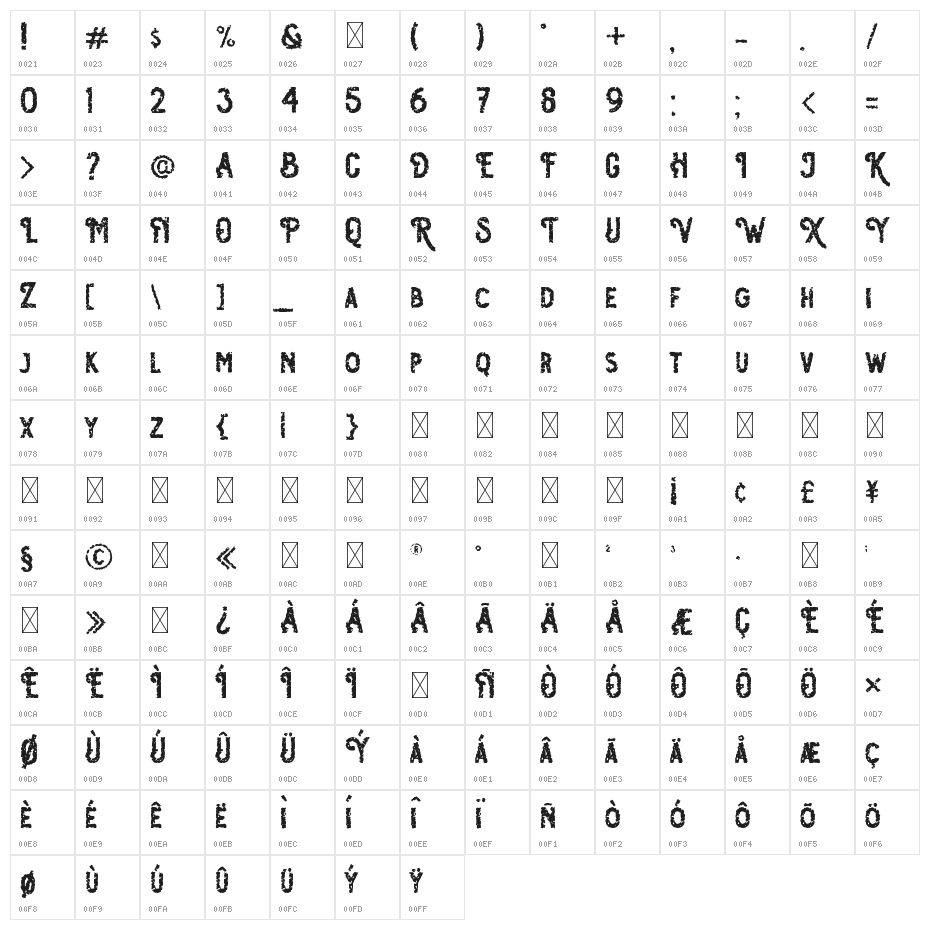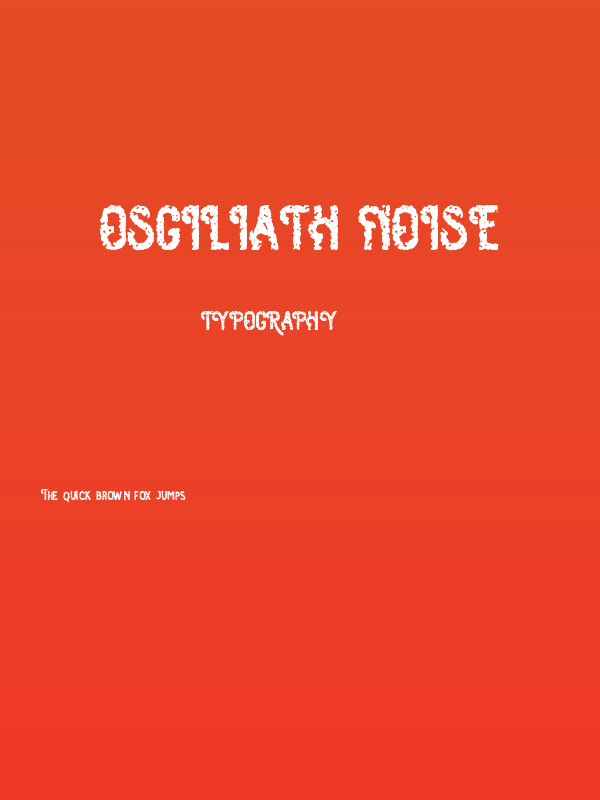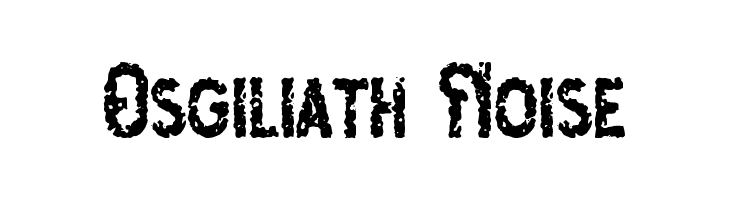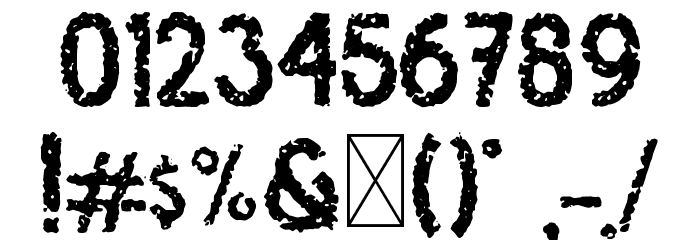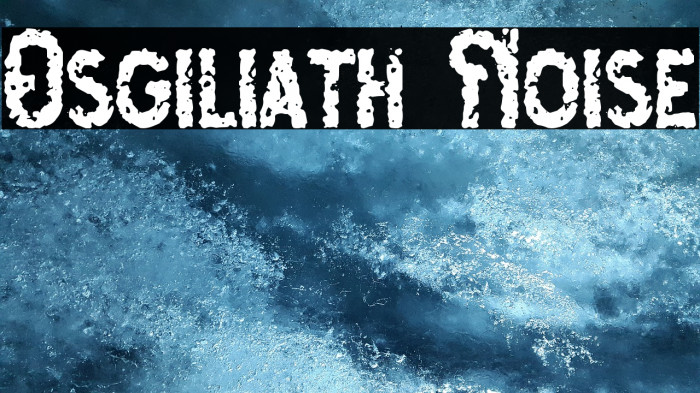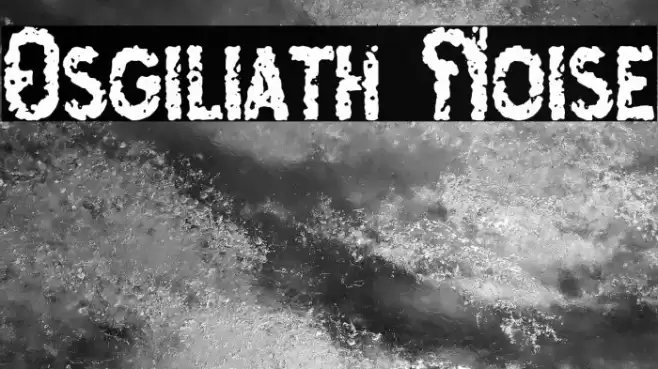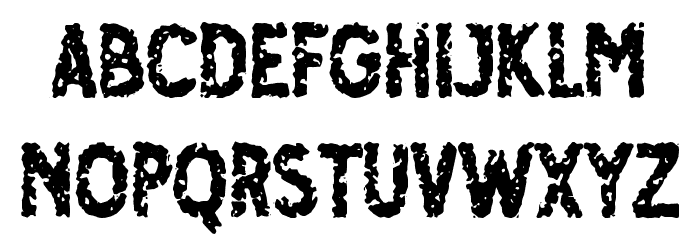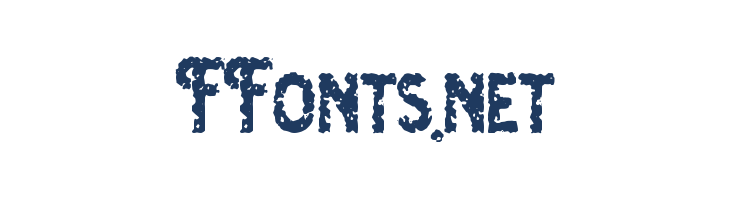
Osgiliath Noise Font
Osgiliath Noise Description
This font features a distressed, textured appearance that gives it a rugged and weathered look. The characters are bold and have an irregular, rough edge, reminiscent of eroded stone or worn-out surfaces. This style creates a sense of age and history, making it ideal for projects that require a vintage or grunge aesthetic. The uppercase and lowercase letters maintain a consistent style, with numbers and special characters following suit. The font's unique texture adds depth and character, making it stand out in any design.
| Overall Style | Vintage |
| Proposed Projects | Ideal for posters, album covers, vintage-themed designs, and branding that requires a rugged, historical feel. |